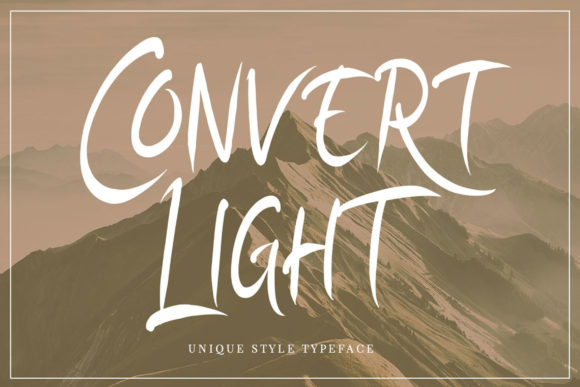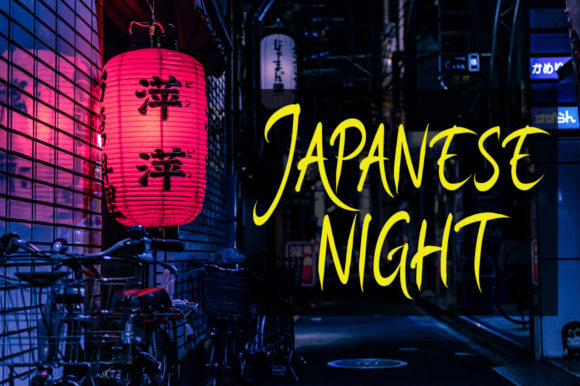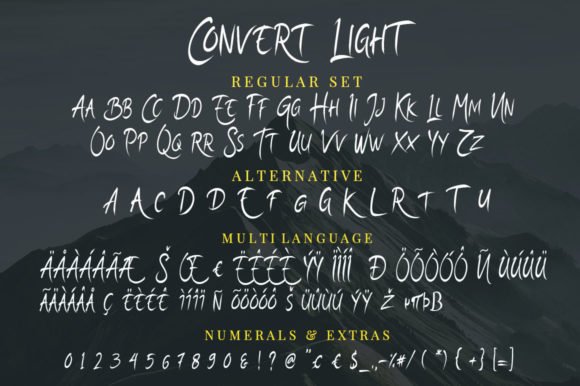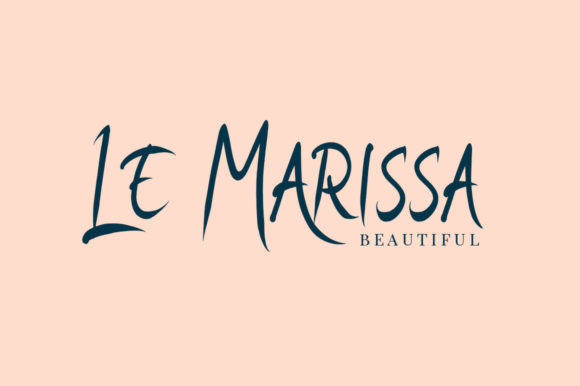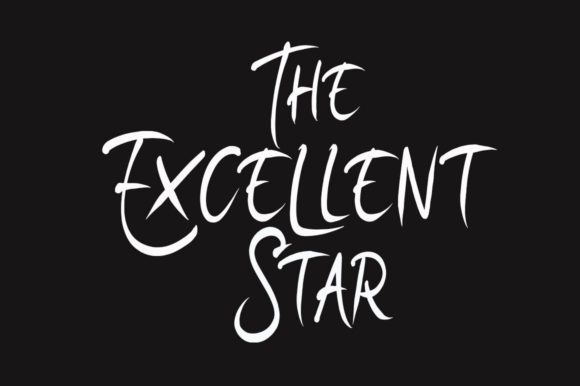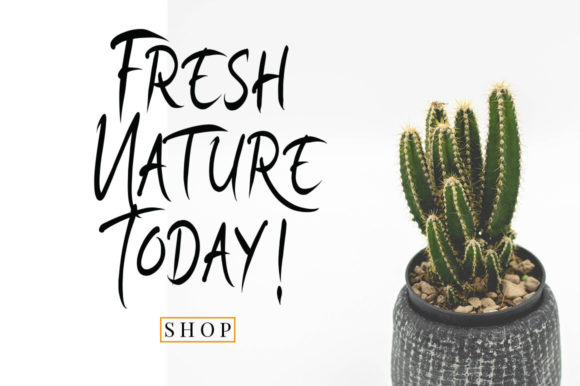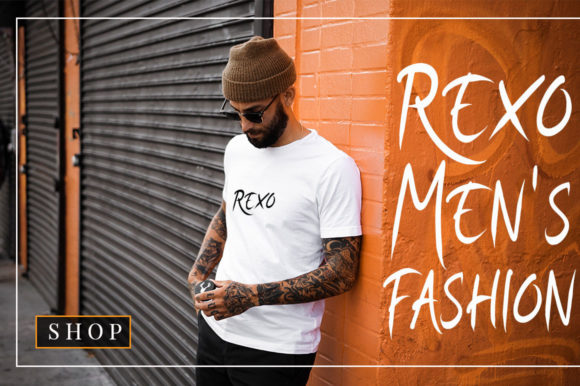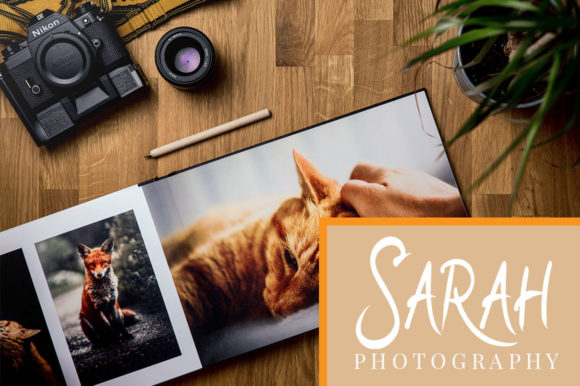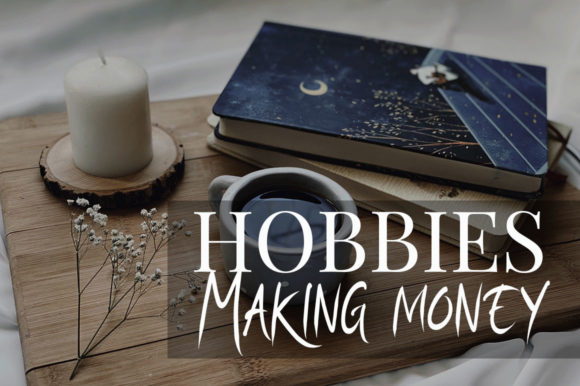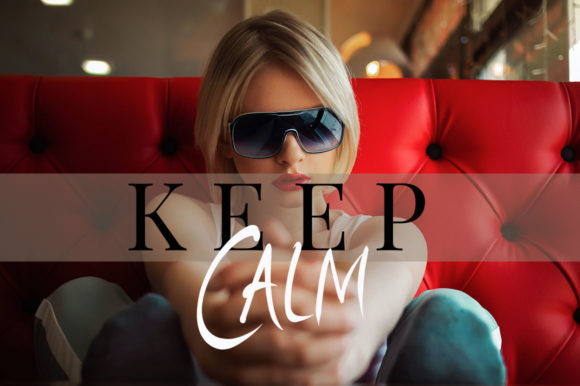
Convert Light Font
About Convert Light Font
Convert Light is a fancy and elegant handcrafted font that was created to impress your audience and make your branding shine. Make your projects dance with this elegant and wonderful font wherever you use it. This font is PUA encoded which means you can access all of the amazing glyphs and ligatures with ease!